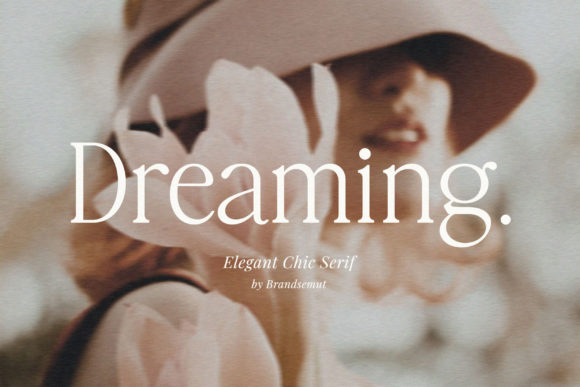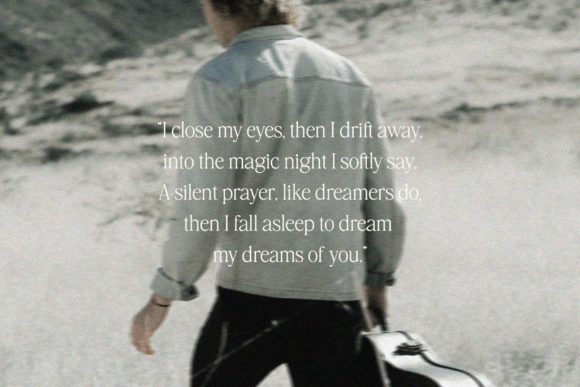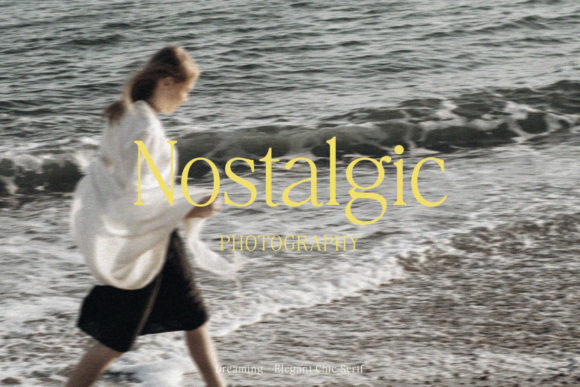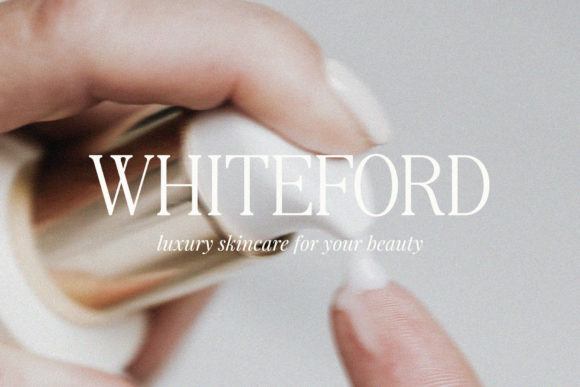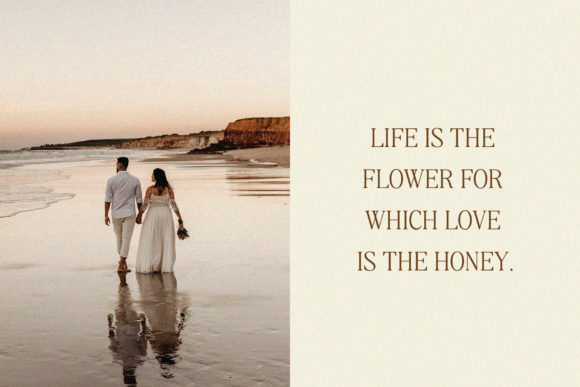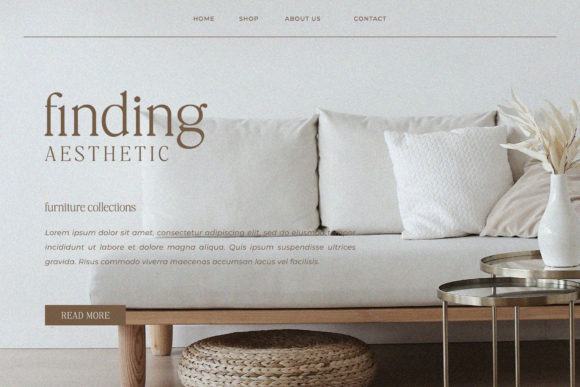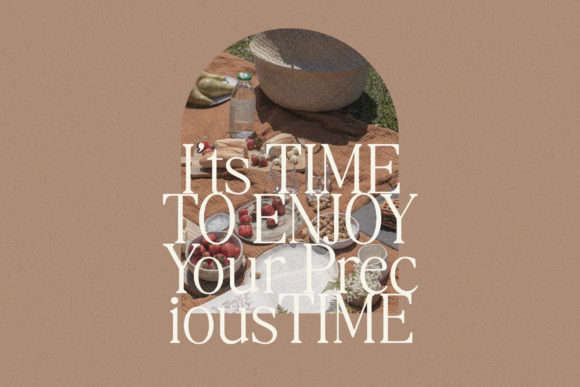
Dreaming Font
Dreaming is a stylish and vintage serif font. It is suitable for book texts, documentation, business reports, business correspondence, magazines, newspapers, posters, advertisements, multimedia, and corporate design.